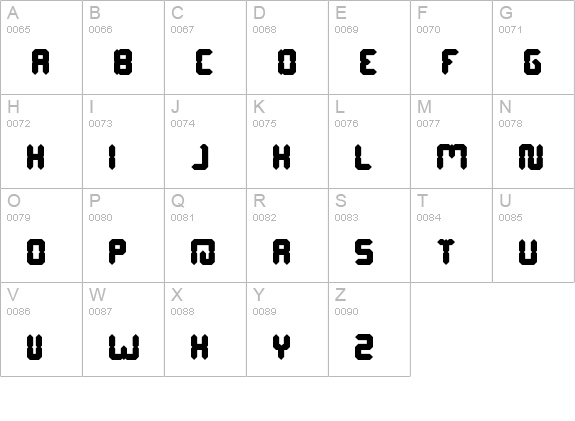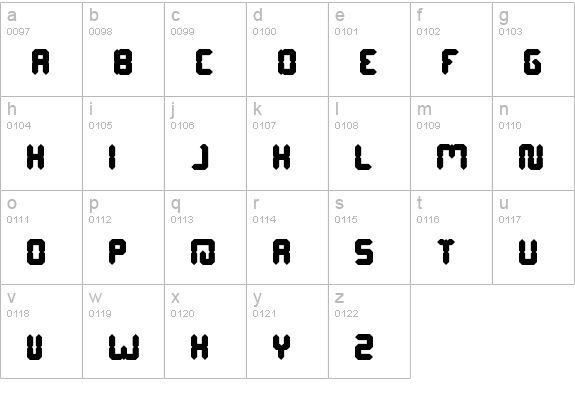
DIGITAL GOTHIC Font Details
DIGITAL GOTHIC font is a mesmerizing blend of modern technology and gothic aesthetics. With its sleek lines and intricate detailing, this font captures the essence of the digital age merged with the dark allure of gothic design. Whether you're creating a website, designing a logo, or crafting a mysterious invitation, DIGITAL GOTHIC font is the perfect choice to add a touch of edge and sophistication to your project. This font exudes an air of mystique and elegance, making it ideal for projects that require a distinct visual impact. Its sharp angles and clean curves create a sense of precision and professionalism, while its gothic undertones bring an element of intrigue and drama. But what makes DIGITAL GOTHIC font truly remarkable is that it is not only visually captivating, but also freely available for download. You can easily access this font at FontsMarket.com, where it awaits to enhance your creative endeavors. Embrace the power of free expression and let the distinctive charm of DIGITAL GOTHIC font elevate your designs to new heights. Whether you're a professional designer or an aspiring artist, this font will be a valuable addition to your creative arsenal. Its versatility allows it to seamlessly adapt to various design contexts, from futuristic branding to horror movie titles. The possibilities are endless with DIGITAL GOTHIC font, and its availability as a free download ensures that everyone can harness its captivating allure. So, don't miss out on this opportunity to infuse your projects with a touch of digital gothic elegance. Head over to FontsMarket.com and unlock the power of DIGITAL GOTHIC font today. Let your creativity take flight and make a lasting impression with this unique and captivating typeface.